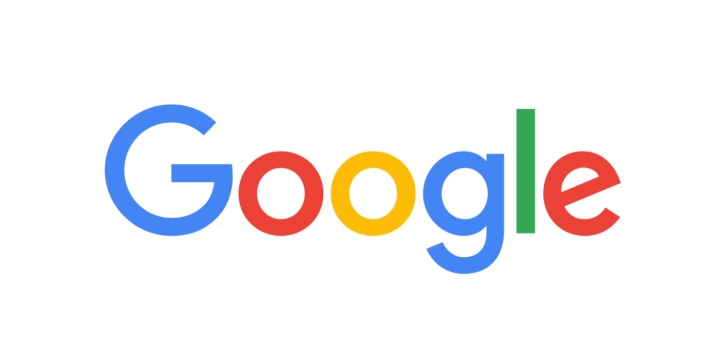
What Font Does Google Use For The Logo?
The font used for the 2015 Google logo is Product Sans, which is a geometric sans serif font published by Google and was never made available to the general public.
The closest available font is Futura, a common go-to which was designed by Paul Renner in 1927. Here's the download link